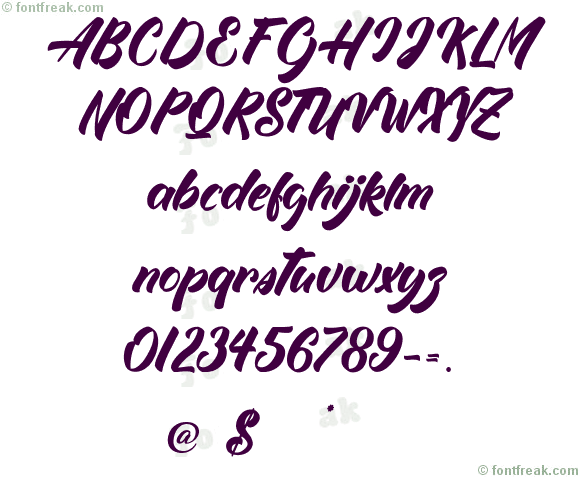
White Mackintosh
About White Mackintosh
The White Mackintosh font, designed by Suthi Srisopha, is a captivating display typeface that combines elegance with a contemporary feel. As a decorative font, it features a unique blend of smooth curves and artistic flair, making it an excellent choice for projects that demand a touch of sophistication. The strokes exhibit a moderate contrast, contributing to its graceful appearance, while the spacing is carefully considered to ensure readability. The playful yet refined nature of this font is highlighted by its sweeping lines and stylish embellishments.
Ideal for a variety of creative applications, White Mackintosh shines in wedding invitations, where its romantic aesthetic can enhance the sentimental value of the occasion. Additionally, it suits movie posters, giving a dramatic flair to titles and taglines. Restaurant menus can also benefit from its stylish presentation, attracting diners with an inviting and upscale look. Content creators will find it useful for social media graphics, helping to elevate brand identity through visually appealing texts. Graphic designers looking for versatile typefaces will appreciate its adaptability across different mediums.
What sets the White Mackintosh font apart is its ability to harmonize artistic expression with practical usability. This font is not just a typeface; it is a tool that empowers creators to convey messages with style and grace. If you're looking to enhance your design projects, the White Mackintosh font free download is an opportunity you won't want to miss.